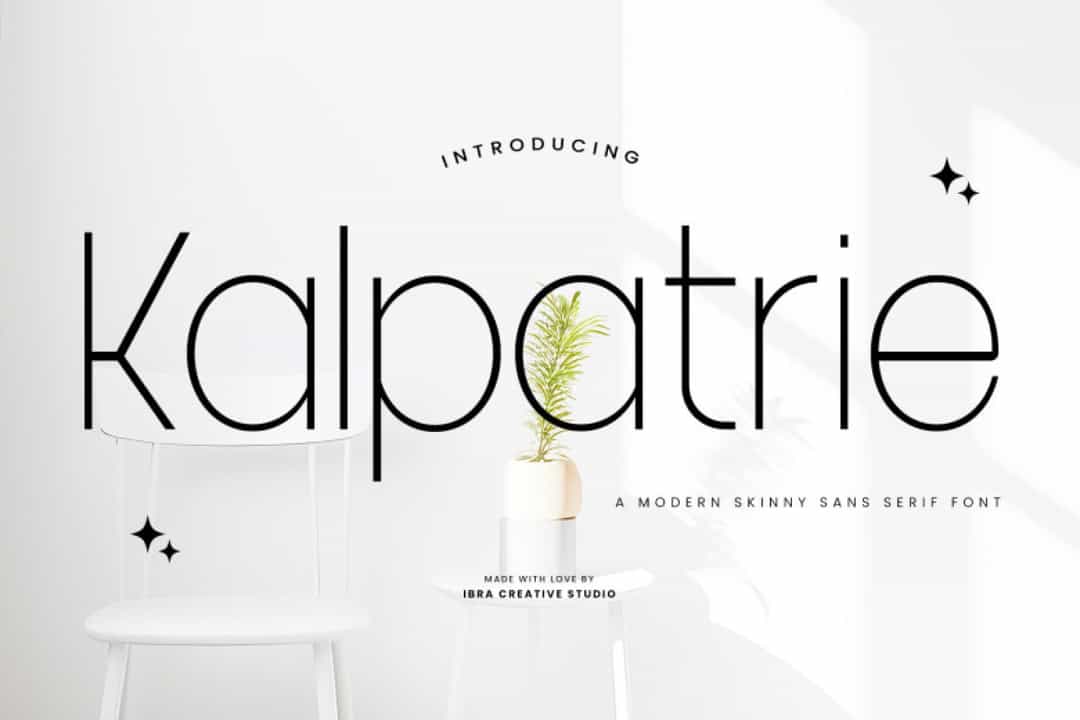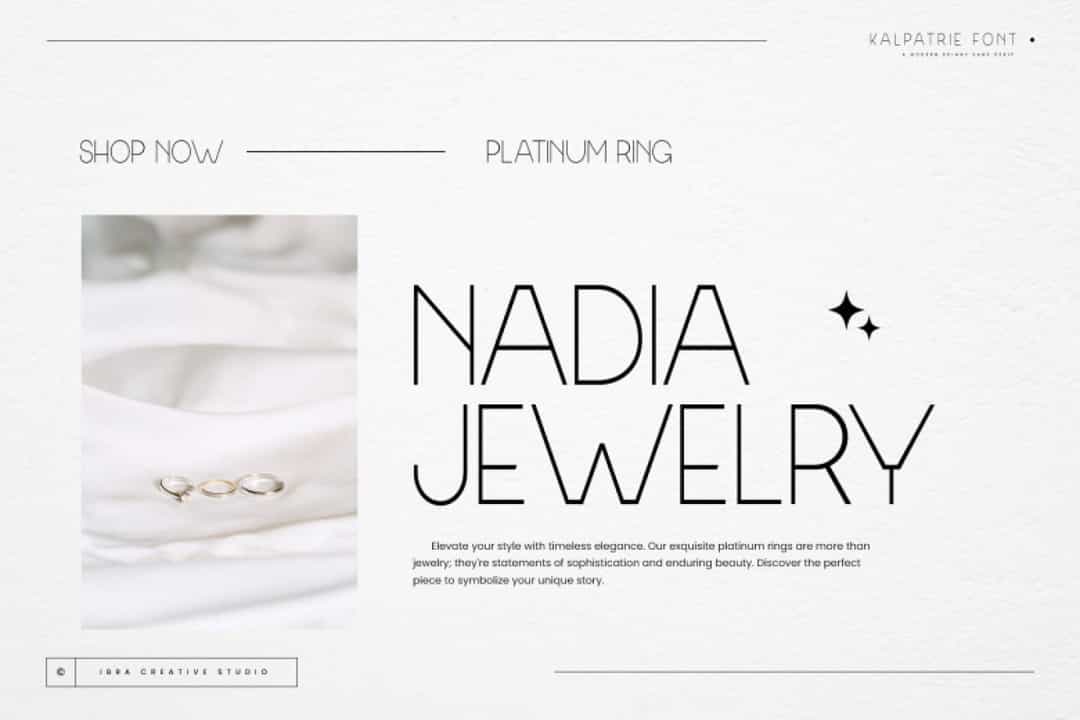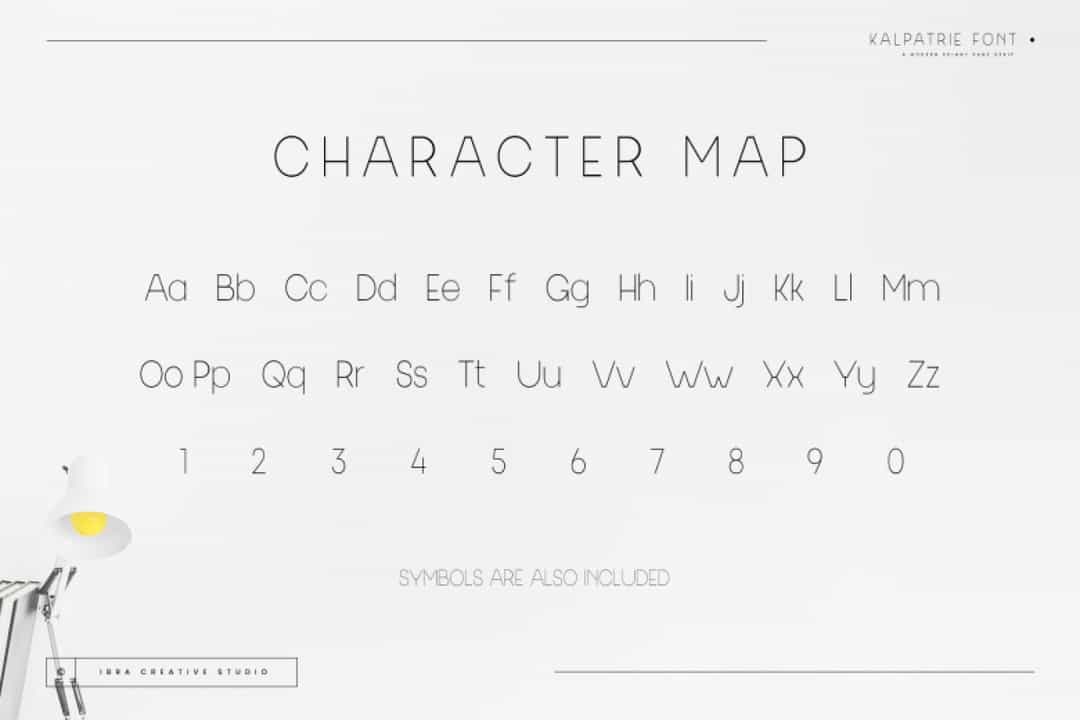
Kalpatrie Sans Serif typeface epitomizes modern design through its sleek lines and minimalist style. The font’s slim letters radiate elegance, making it suitable for use across various design-related applications.